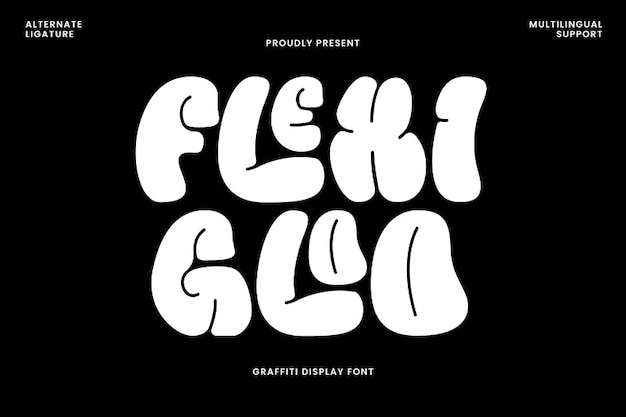
Flexi Gloo Font
Dryy Type
Flexi Gloo font boasts bold, rounded letters resembling clay sculptures. Its playful curves and sturdy structure add a touch of whimsy. Perfect for projects seeking a blend of charm and strength, Flexi Gloo infuses typography with a dynamic flair, molding creativity into tangible form with every character.